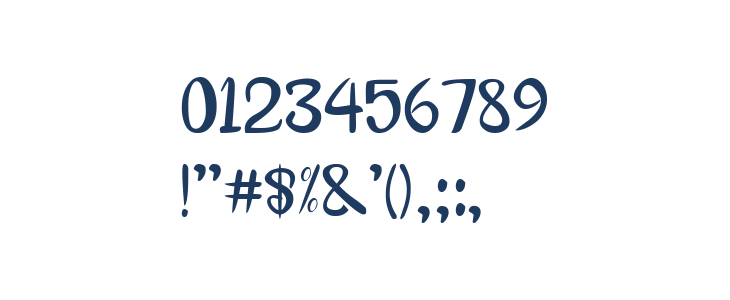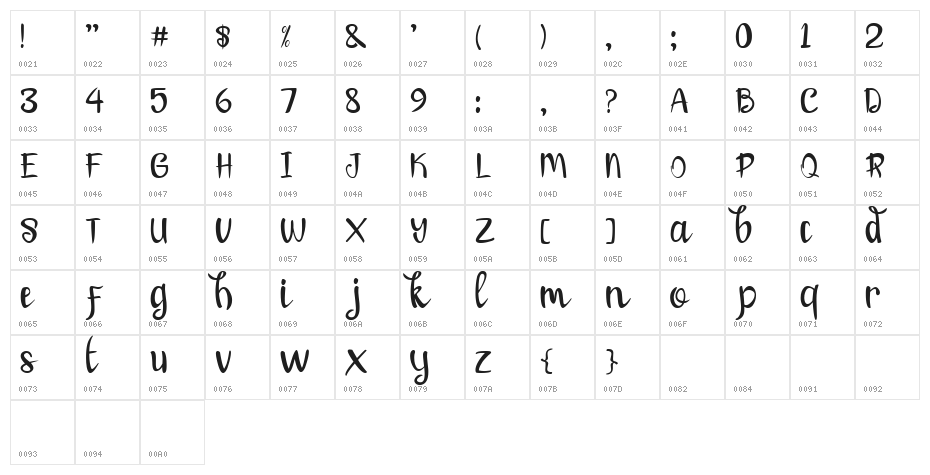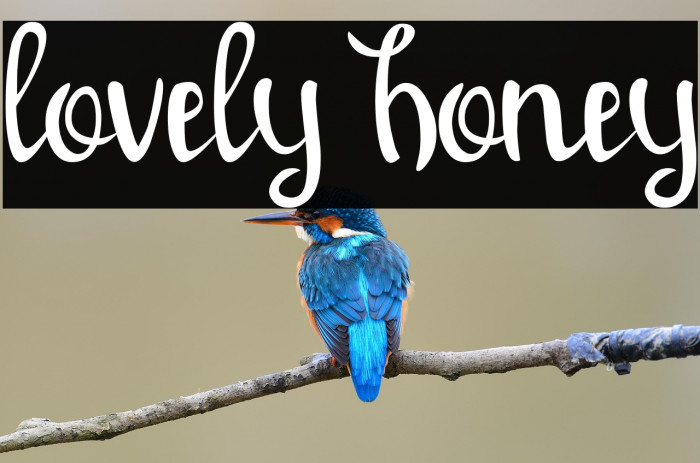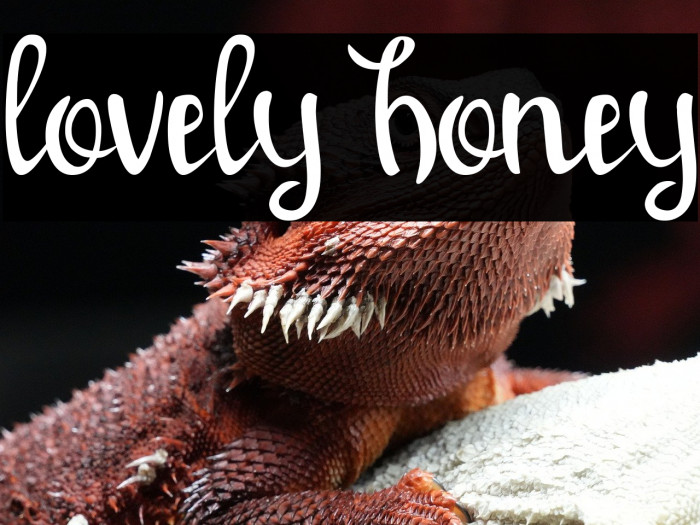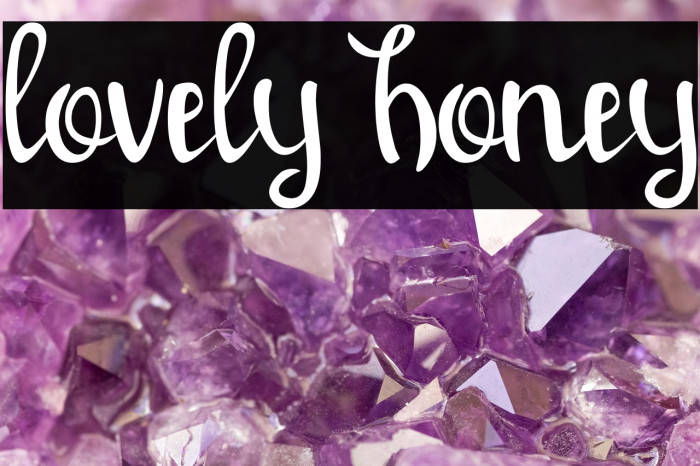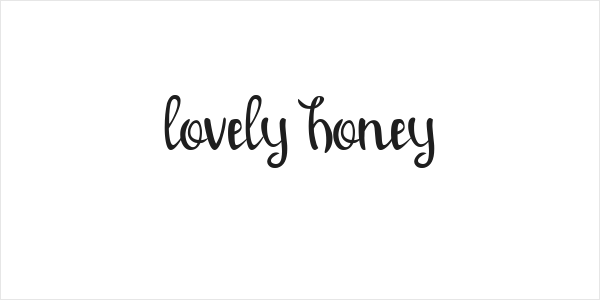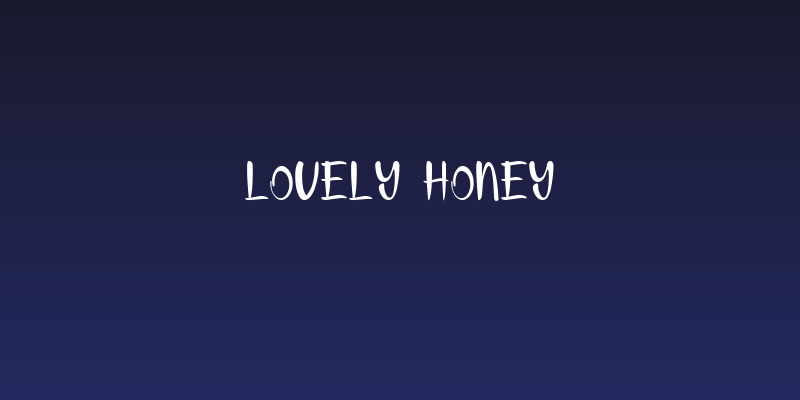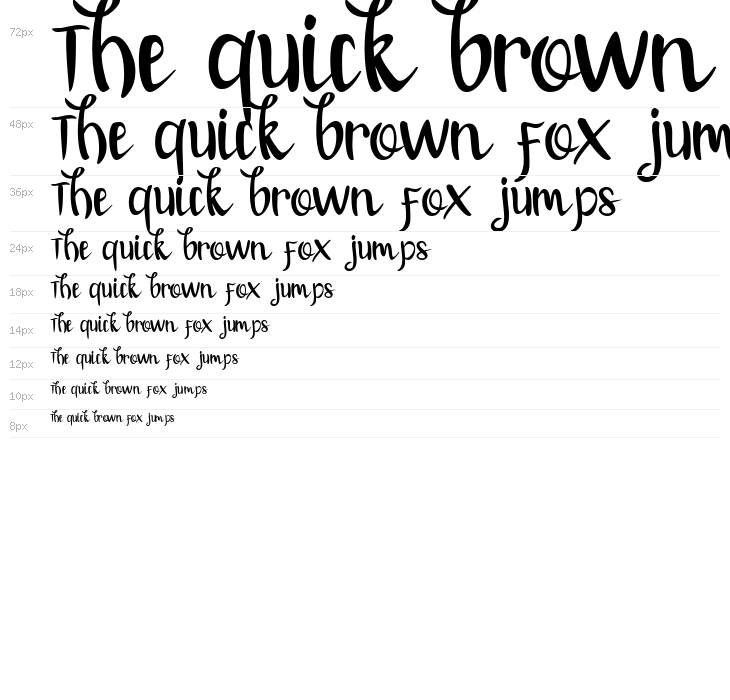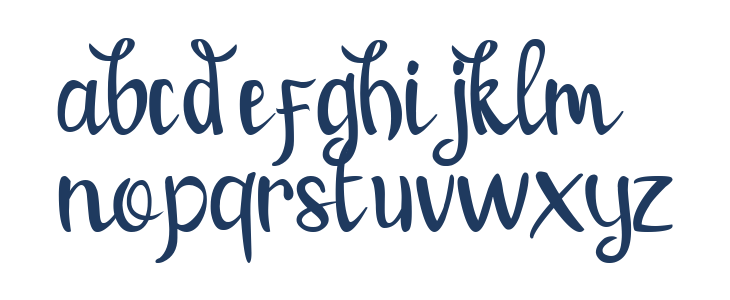
lovely honey Font
lovely honey Description
This font exudes a playful and whimsical charm, characterized by its flowing, cursive-like strokes and a hand-drawn aesthetic. The uppercase letters are bold and slightly elongated, giving a sense of elegance and flair. The lowercase letters maintain a consistent style, with smooth curves and a natural, organic feel. The numbers are well-integrated, matching the overall playful style of the alphabet. Special characters are creatively designed, adding to the font's unique personality. This font is perfect for projects that require a touch of creativity and warmth.
| Proposed Projects | Ideal for greeting cards, invitations, playful branding, and creative posters. |